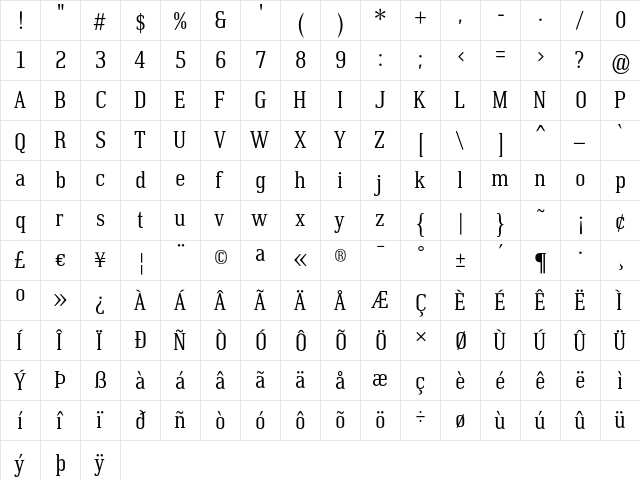
Krasivyi Regular
Design Context for Krasivyi Typeface
Krasivyi offers clean, dependable letterforms without strong stylistic allegiance, making it a practical choice for designers who need flexibility.
Pro Tip: Pair Krasivyi with a font of contrasting weight or personality to build a more expressive typographic hierarchy.